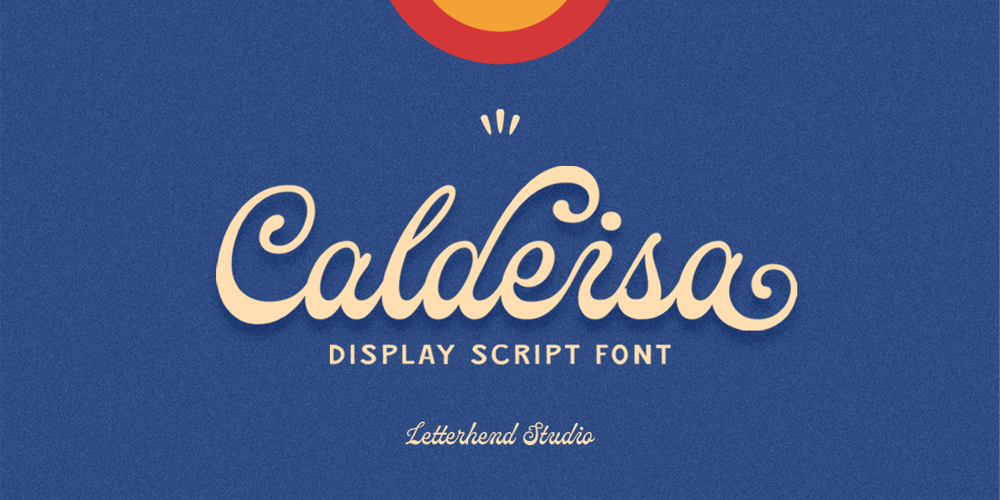
Caldeisa Font Family was designed by Hendry Juanda and published by Letterhend. Caldeisa contains 1 styles and family package options. Calderisa is a display script font with unique and classy feel. This type of font perfectly made to be applied especially in logo, headline, signage and the other various formal forms such as invitations, labels, logos, magazines, books, greeting / wedding cards, packaging, fashion, make up, stationery, novels, labels or any type of advertising purpose.Features : uppercase & lowercase numbers and punctuation multilingual alternates / swashes and ligatures PUA encoded We highly recommend using a program that supports OpenType features and Glyphs panels like many of Adobe apps and Corel Draw, so you can see and access all Glyph variations.